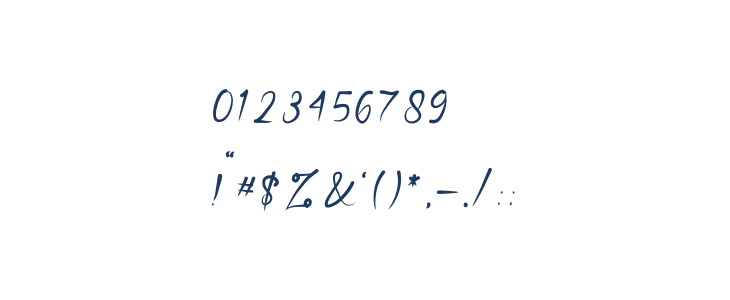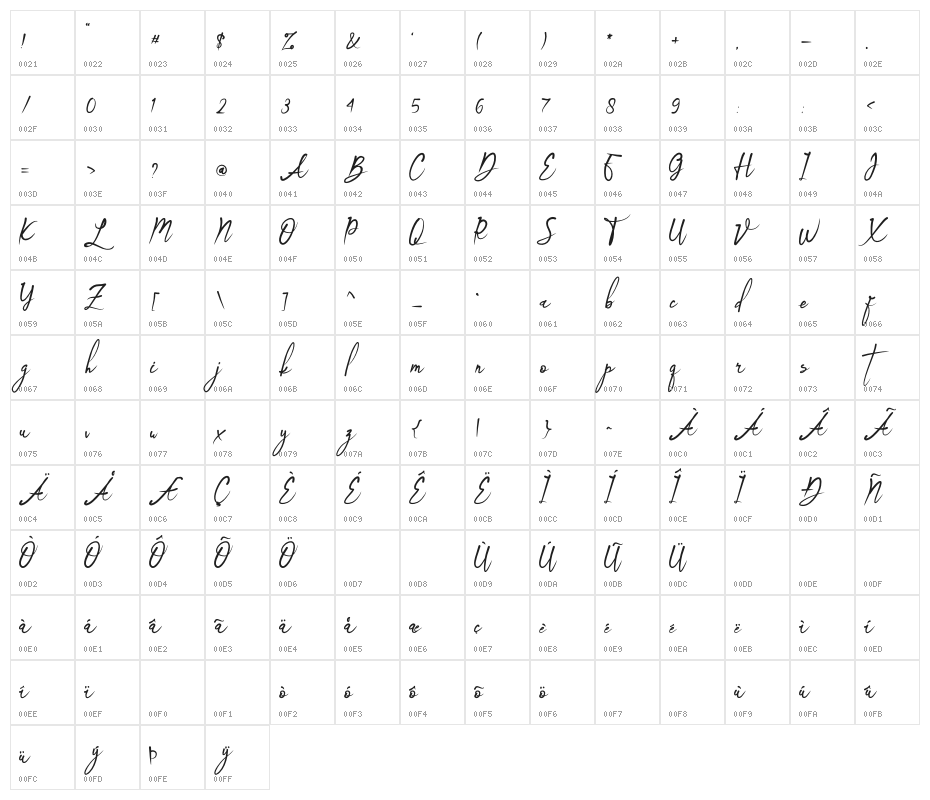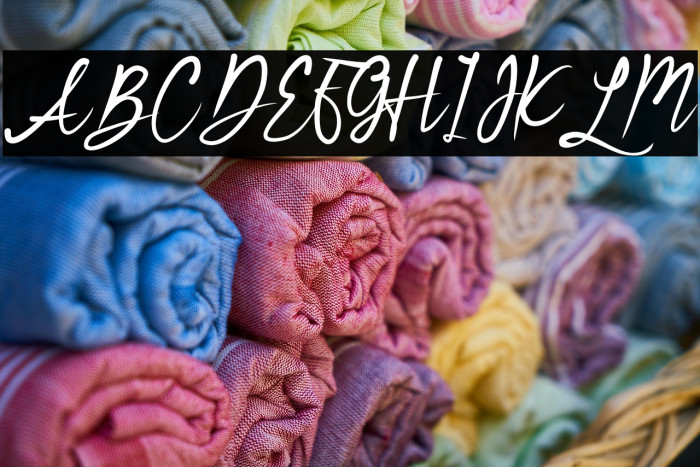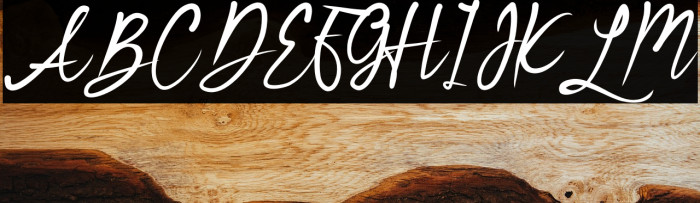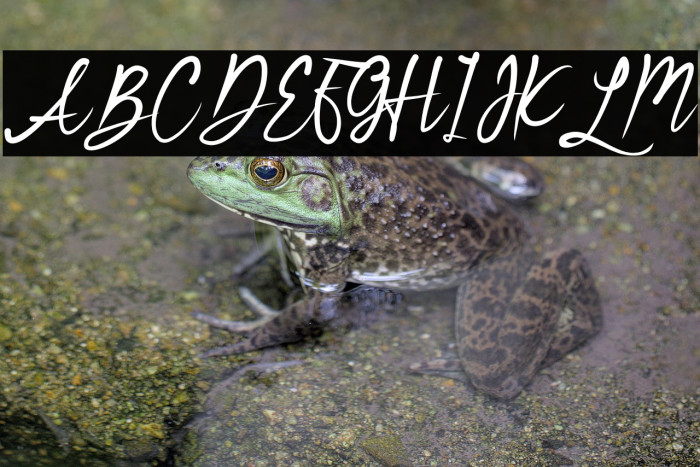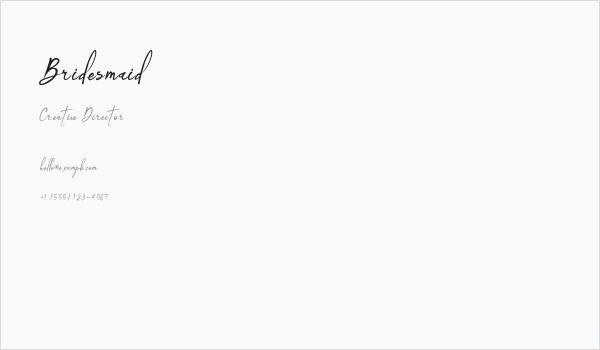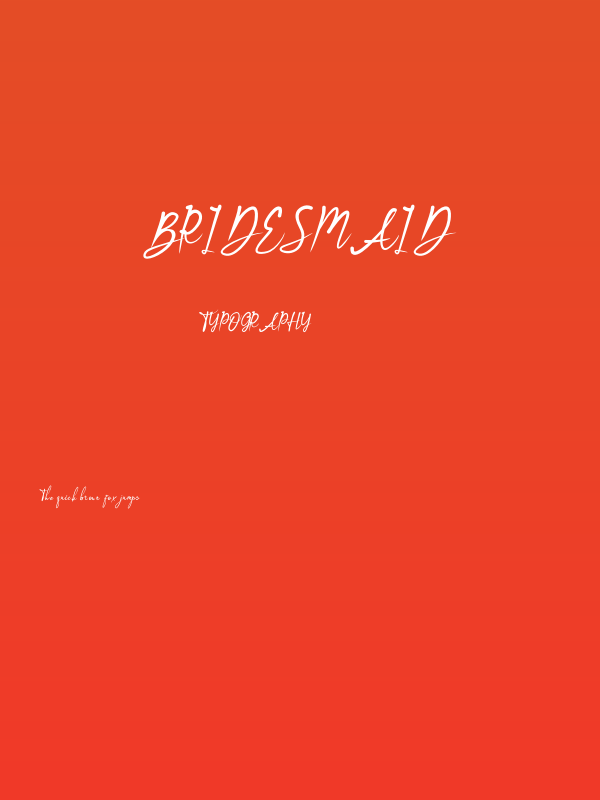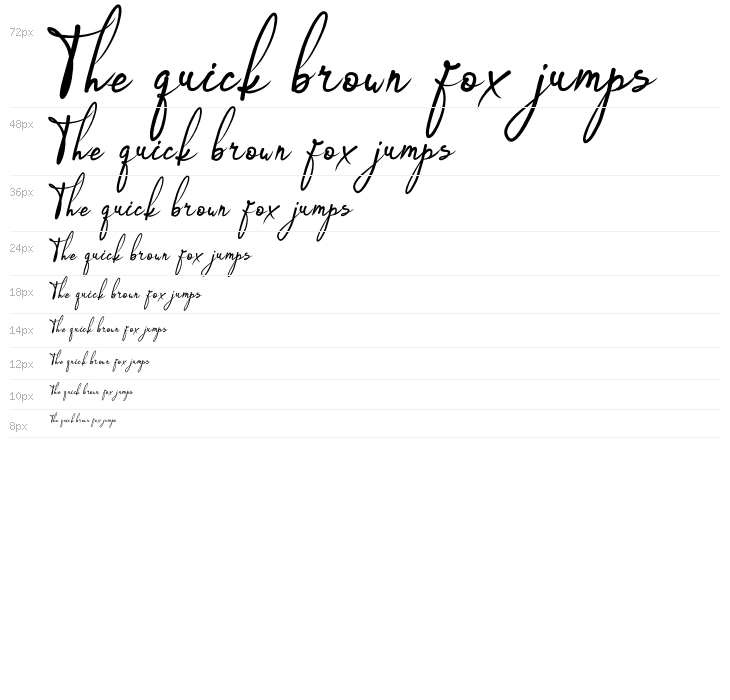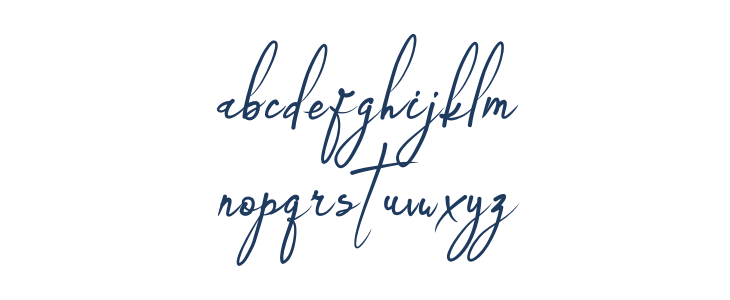
Bridesmaid Font
Bridesmaid Description
This font features a flowing, cursive style that exudes elegance and sophistication. The uppercase letters are bold and slightly slanted, with intricate loops and flourishes that add a touch of drama. The lowercase letters maintain a consistent flow, with smooth connections between each character, enhancing the script-like appearance. The numerals are clear and distinct, maintaining the overall cursive theme. Special characters are creatively integrated, matching the font's elegant style. This font is perfect for projects that require a personal, handwritten touch, such as invitations, greeting cards, or branding materials.
| Overall Style | Elegant, Decorative |
| Use Case | Headlines, Invitations, Logos |
| Proposed Projects | Ideal for wedding invitations, greeting cards, personal branding, and elegant logos. |